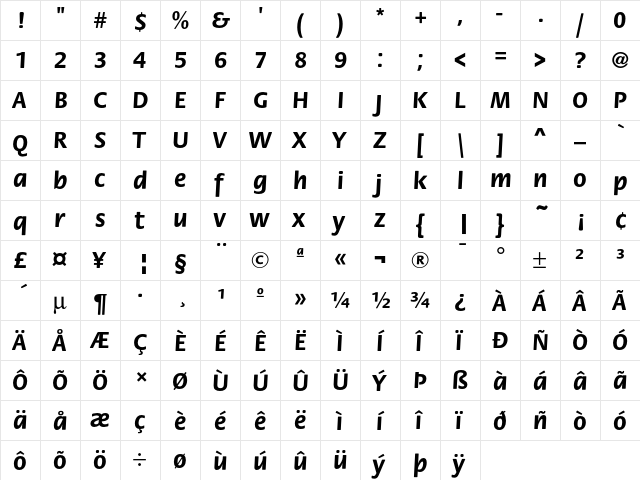
FloraICG Bold
Design Context for FloraICG Typeface
FloraICG offers clean, dependable letterforms without strong stylistic allegiance, making it a practical choice for designers who need flexibility. The heavy weight commands attention and anchors typographic hierarchies.